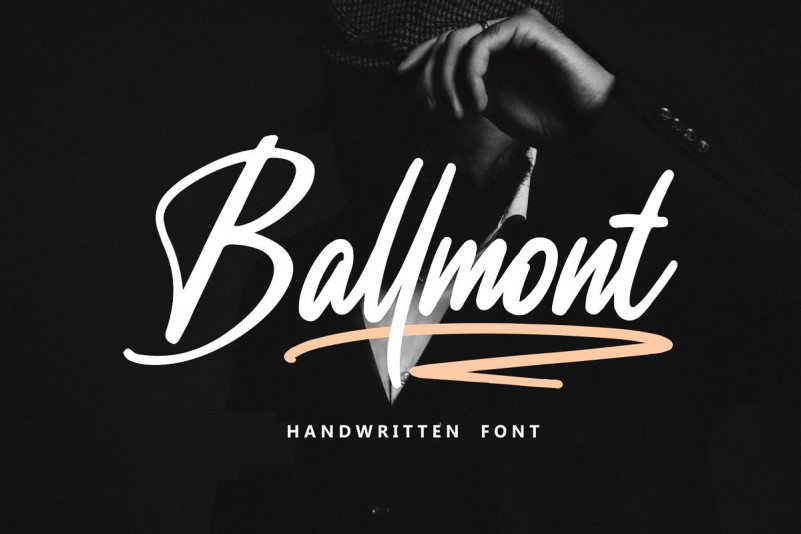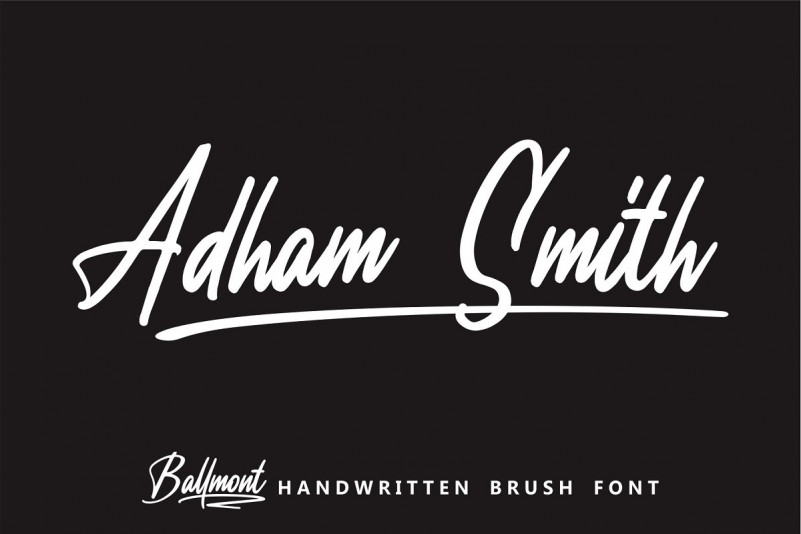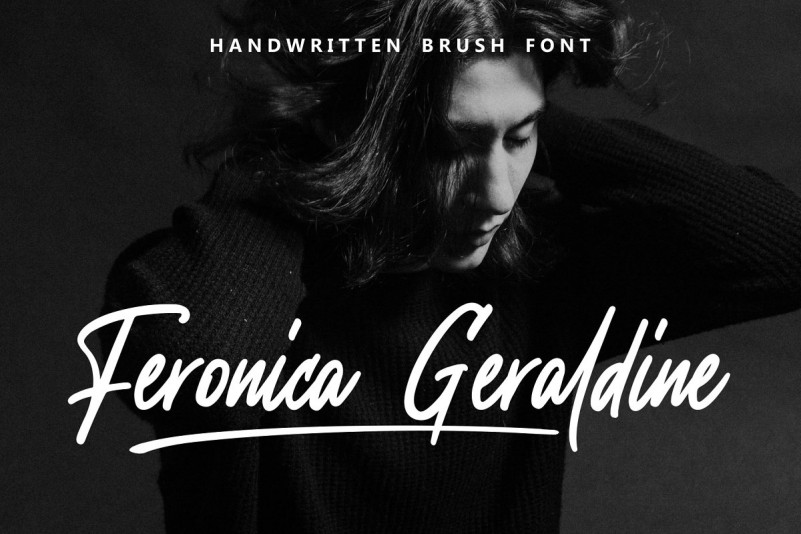
Ballmont Font
Ballmont Script Font, every single letter has been carefully crafted to make your text look beautiful. With a modern script style this font will be perfect for many different projects ex: photography, watermark, quotes, web design, blog header, poster, wedding, branding, logo, fashion, apparel, letter, invitation, stationery, etc.